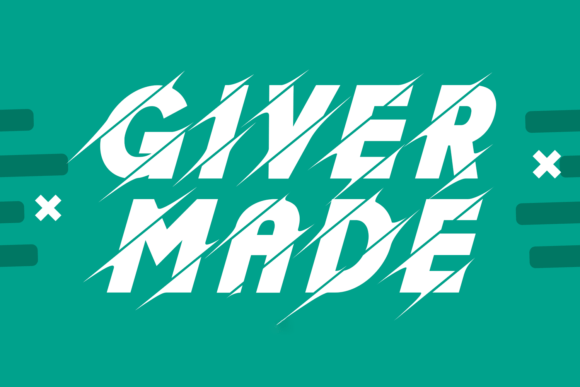
Introducing Giver Made Font, the ultimate font for creating bold and captivating designs. This dynamic font is the perfect choice for sports enthusiasts, adrenaline junkies, and anyone looking to make a statement with their designs.
With its sharp angles, dynamic curves, and powerful presence, Giver Made Font will elevate your designs to new heights. Create eye-catching logos that pack a punch, design posters that ignite excitement, and craft social media graphics that leave a lasting impression.
Giver Made Font is the perfect choice for a wide range of projects, from branding and marketing materials to product packaging and apparel design. Let your creativity soar and bring your vision to life with this bold and impactful font.
Unlock the potential of your designs with Giver Made Font. Its versatile nature makes it suitable for any project that demands attention. Whether you're a seasoned designer or just starting out, Giver Made Font is your perfect companion for creating designs that leave a lasting impact.
Don't settle for ordinary fonts. Choose Giver Made Font and unleash your creativity. Its bold and sporty style will add an instant touch of energy and excitement to your designs, making them stand out from the crowd. Join the league of exceptional designers who choose Giver Made Font to create designs that captivate and inspire.